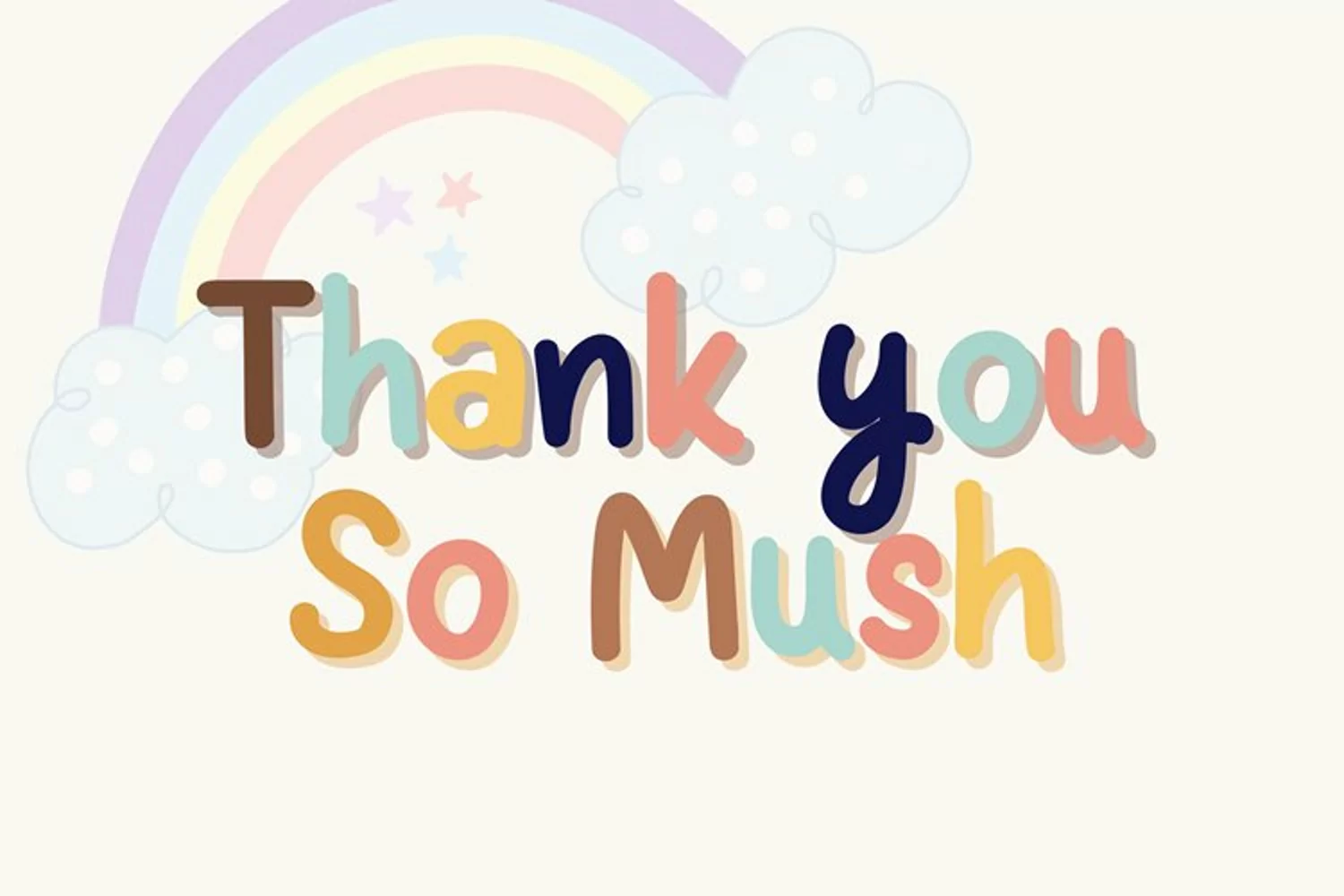
Christmas Cute Snow Color Font
Sunday is a cool and fun display font. It looks both cute and jolly and it will enhance each of your designs. The only limit is your imagination. Add this colorful and bold display font to each of your creative ideas and notice how it makes them come alive!